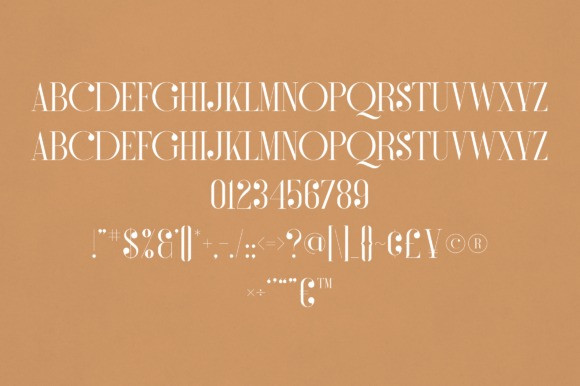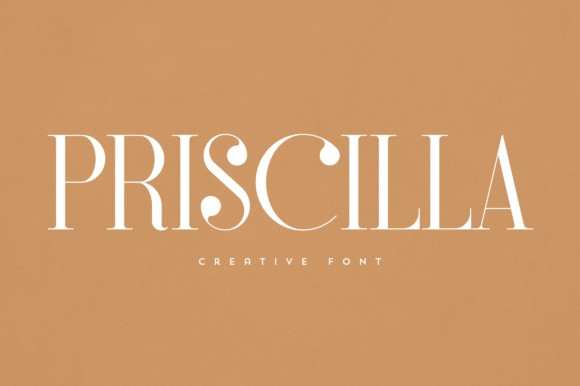
Priscilla Font
Priscilla Font is an elegant and versatile serif font that will make your typography truly unique! It will enchant every logo, branding, headline, or plain text!